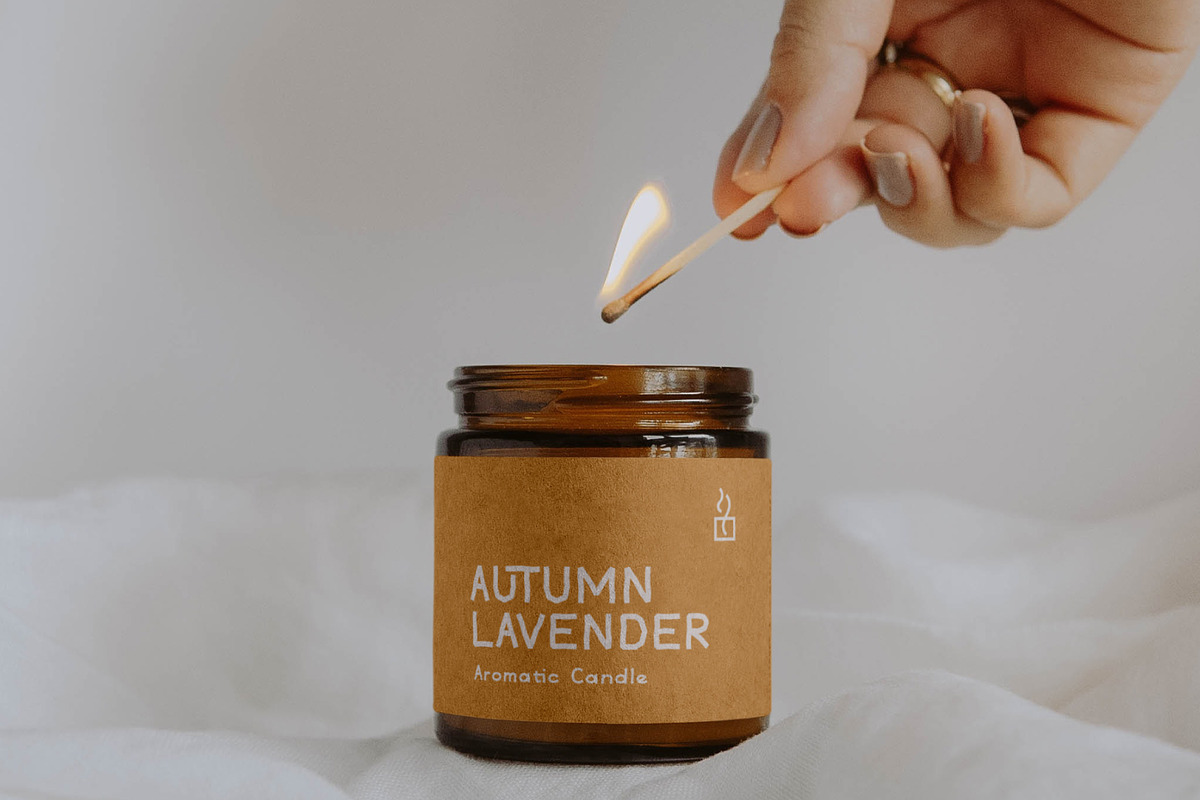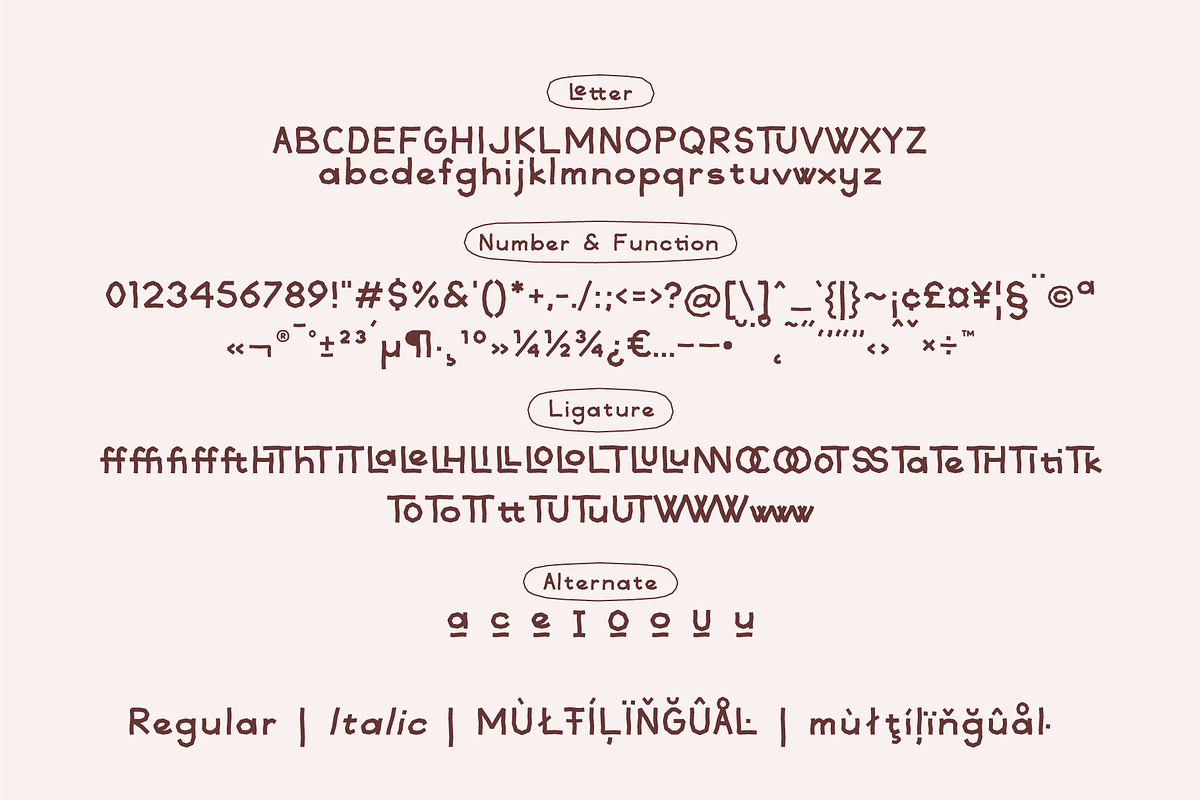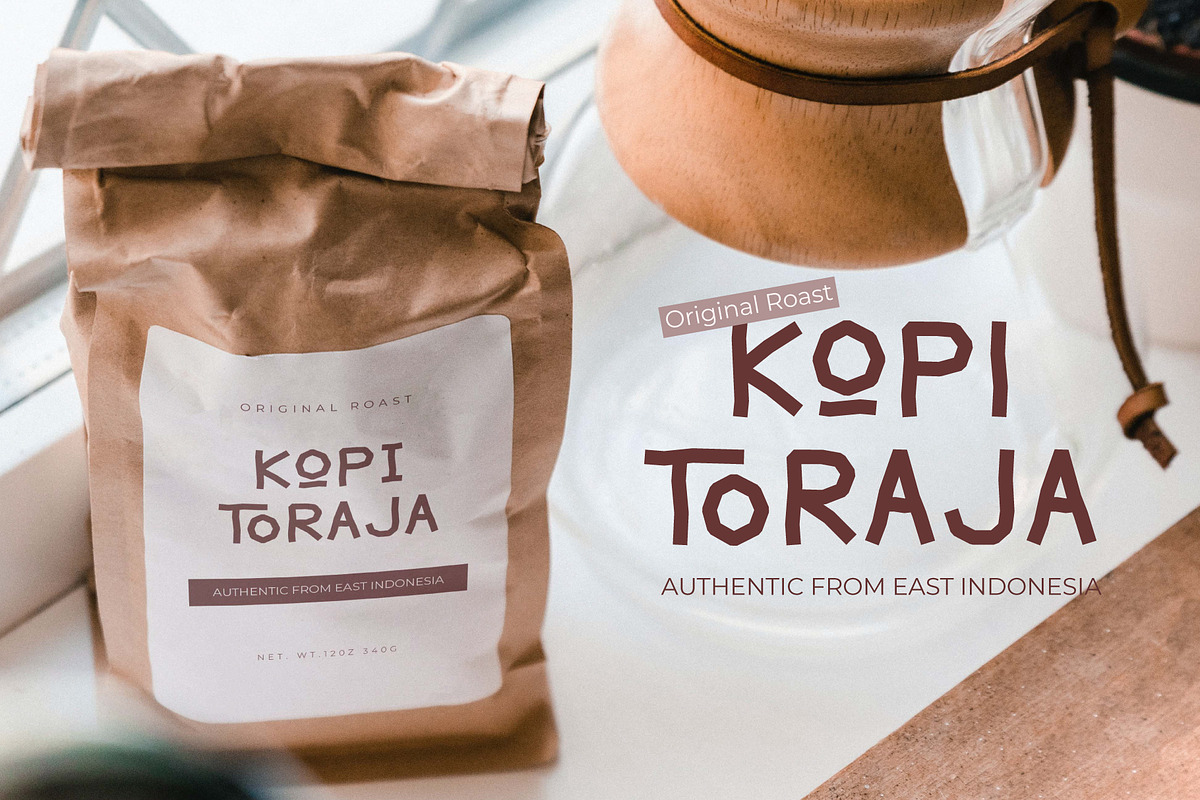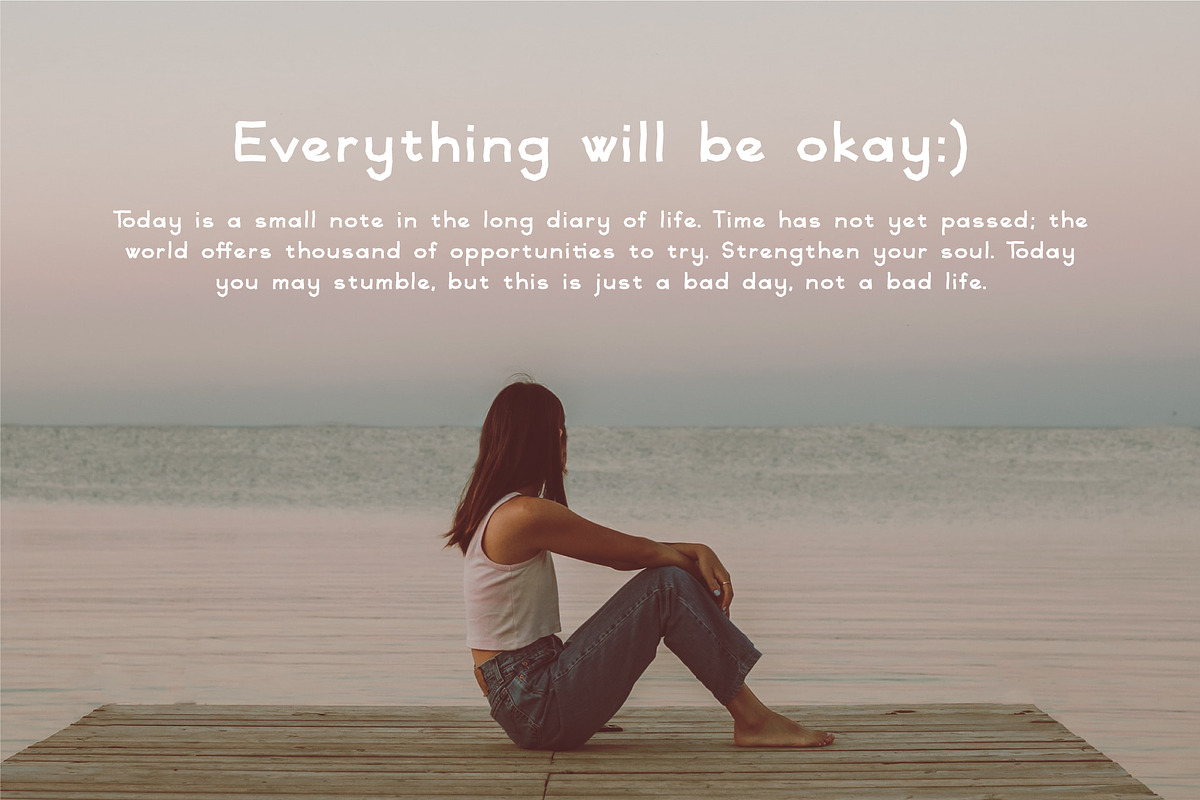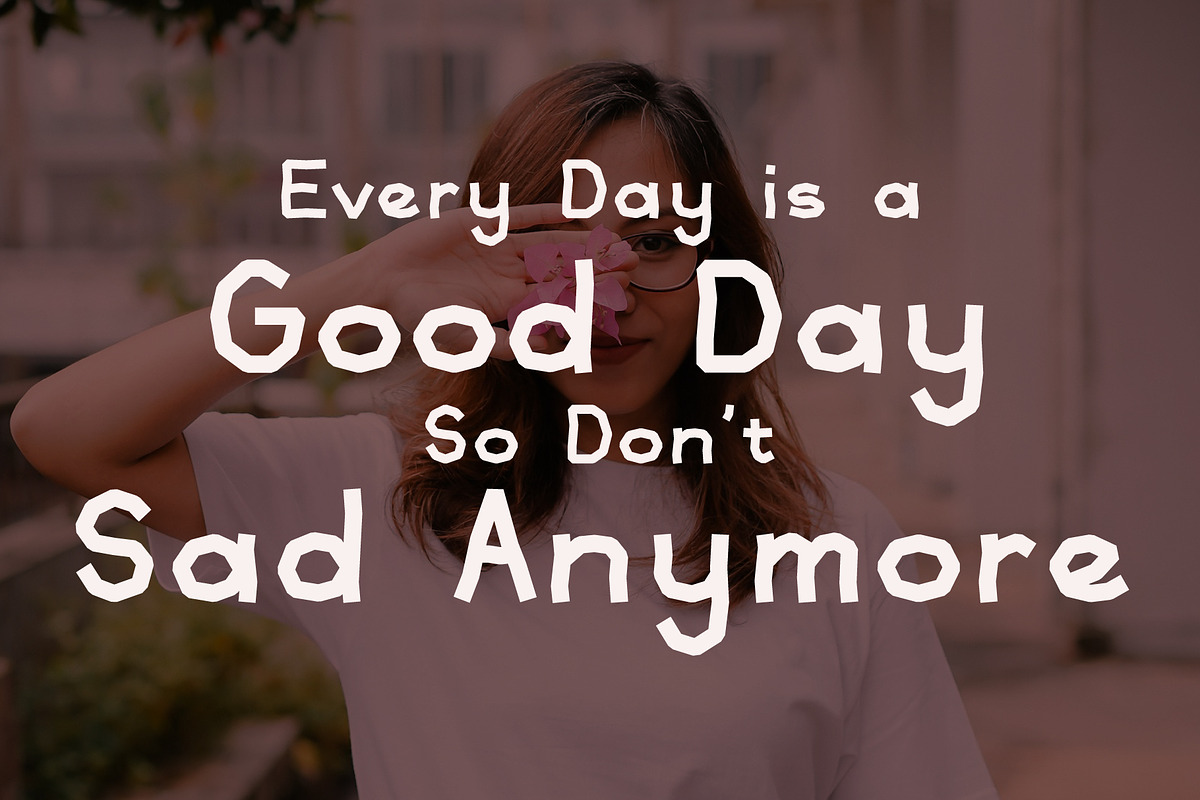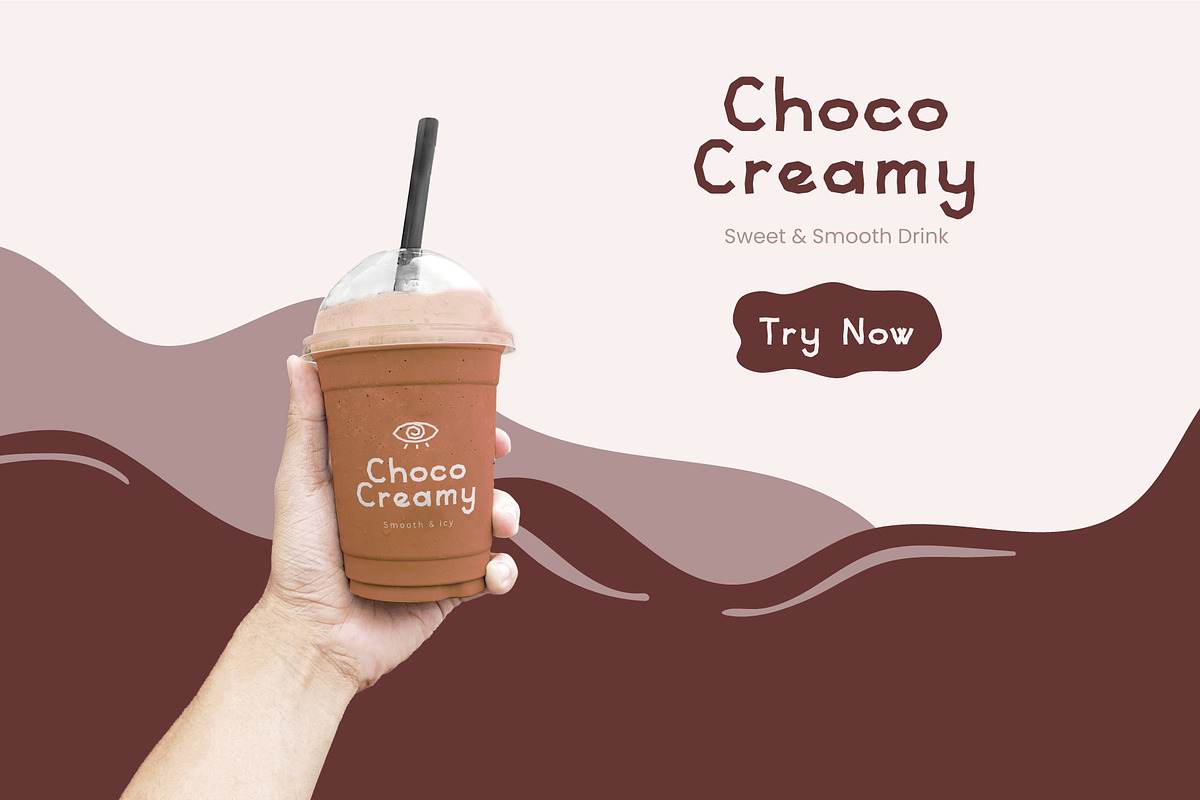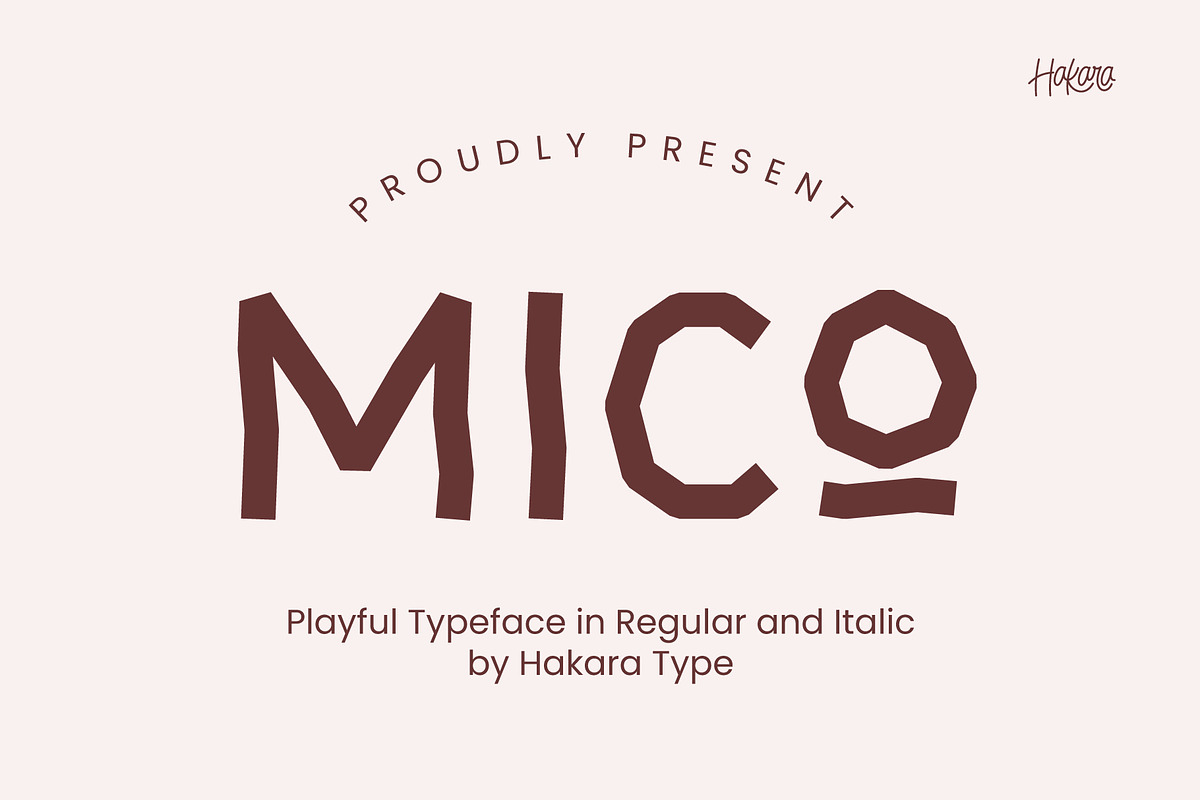
Mico - Playful Typeface
Mico typeface is a unique and diverse font with a distinctive zig-zag shape. It features fun, bold, and playful characteristics. Mico comes with uppercase, lowercase, numbers, function, ligature, and included multilingual support.